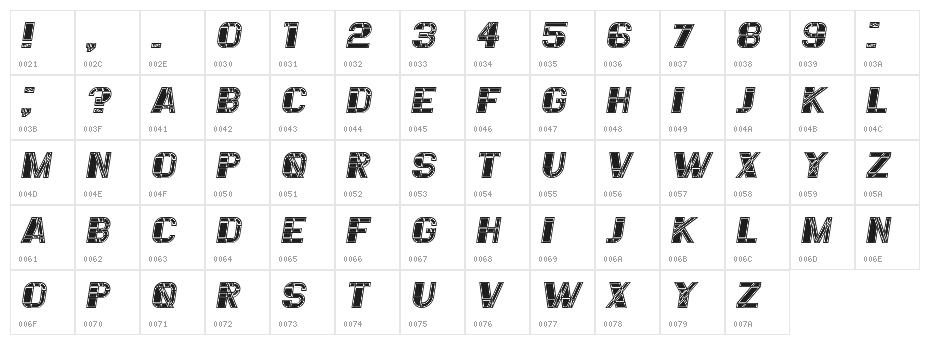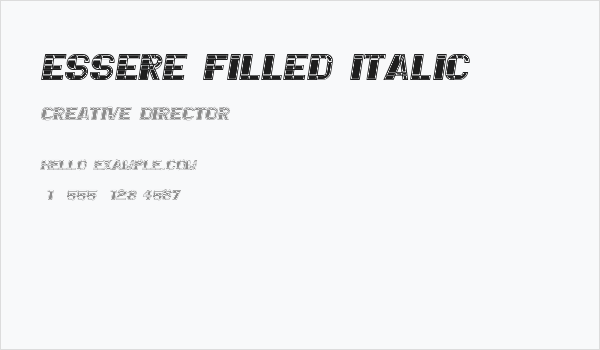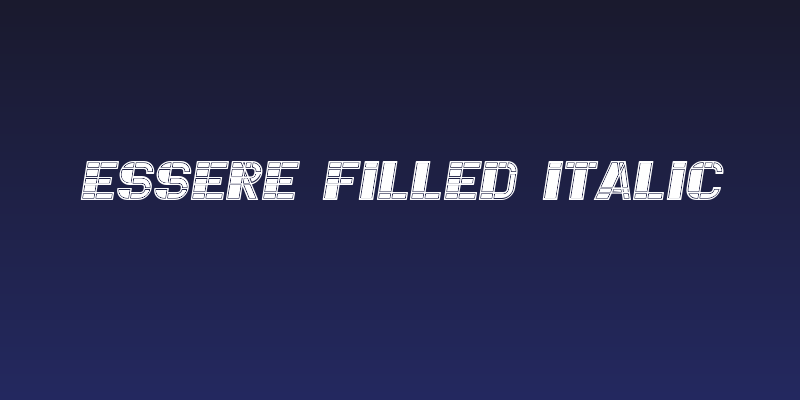
Essere Filled Italic Font
Essere Filled Italic Description
This font features a bold and dynamic design with a filled, italicized style. The characters are constructed with a unique pattern of horizontal lines and solid fills, creating a sense of movement and energy. The uppercase and lowercase letters maintain a consistent style, with a strong emphasis on geometric shapes and sharp angles. The numbers and special characters follow the same design principles, ensuring uniformity across the font. This font's distinct appearance makes it suitable for projects that require a modern and eye-catching typeface.
| Proposed Projects | Ideal for sports branding, dynamic posters, modern advertisements, and digital media projects. |